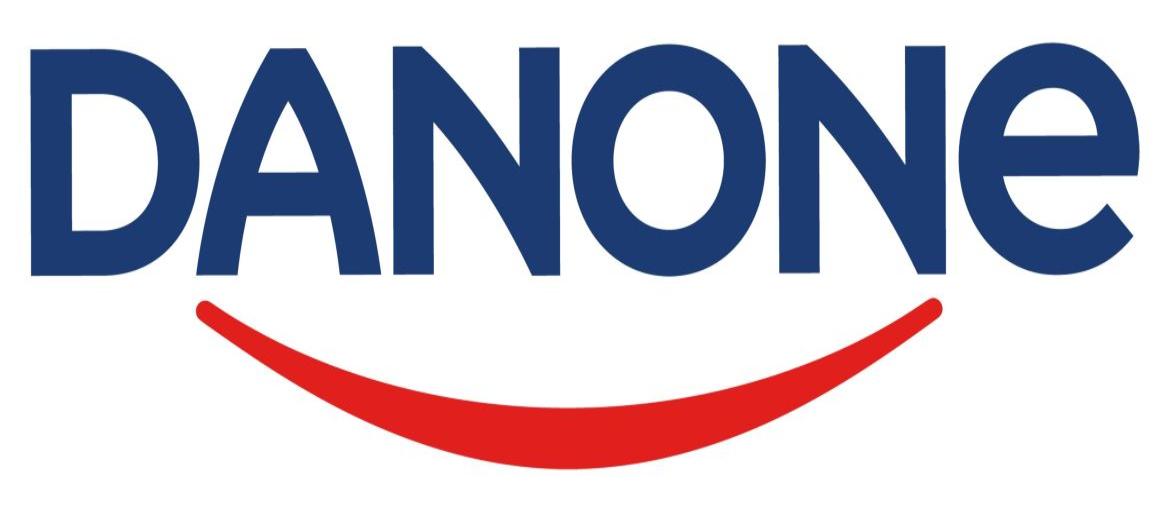
Danone Font
The Danone Font reflects a thoughtful balance of scientific credibility and approachable design. Its smooth, flowing letterforms mirror the brand’s focus on health, nutrition, and wellness, creating a friendly yet professional visual identity. The gentle curves and consistent spacing make the font highly legible across packaging and digital media while conveying the brand’s dedication to probiotics, nutrient-rich products, and sustainable food practices.